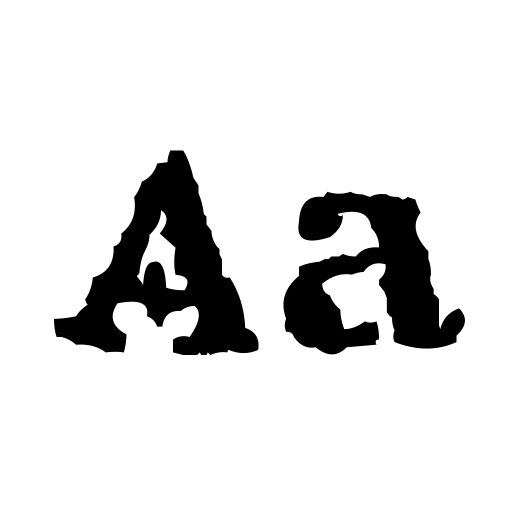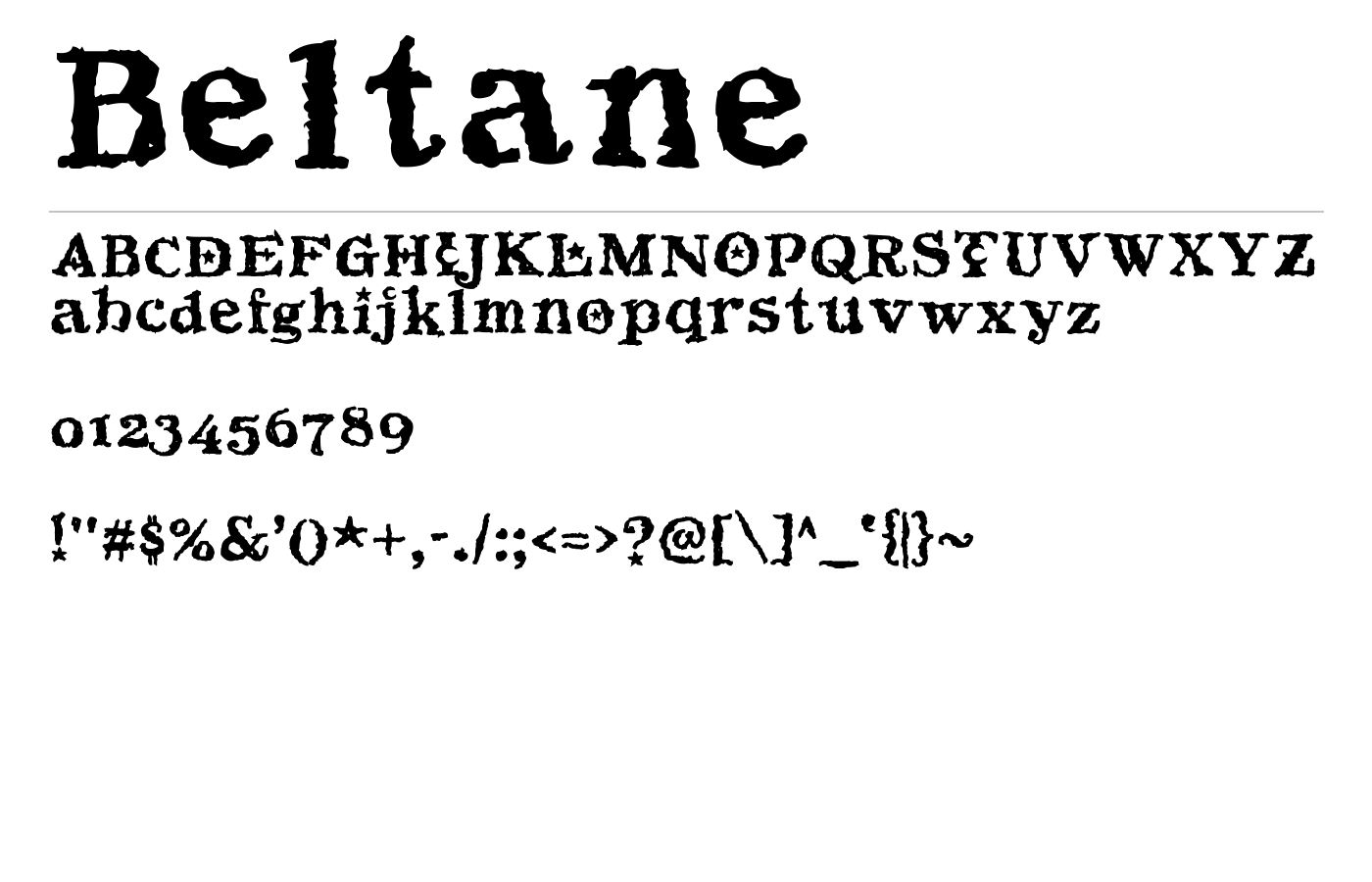
Beltane is a distinctive serif font with a bold, slightly condensed feel and rough, textured edges that give it a handcrafted, vintage vibe. Its medium x-height and uneven stroke contrast create a lively, rustic appearance, making it ideal for designs seeking an authentic, somewhat old-world charm. This font works wonderfully in posters, branding, and editorial projects that aim to stand out with a quirky and expressive personality.
Beltane Font
About Beltane Font
| Font family | Beltane Font |
| Designer | Darren Rigby |